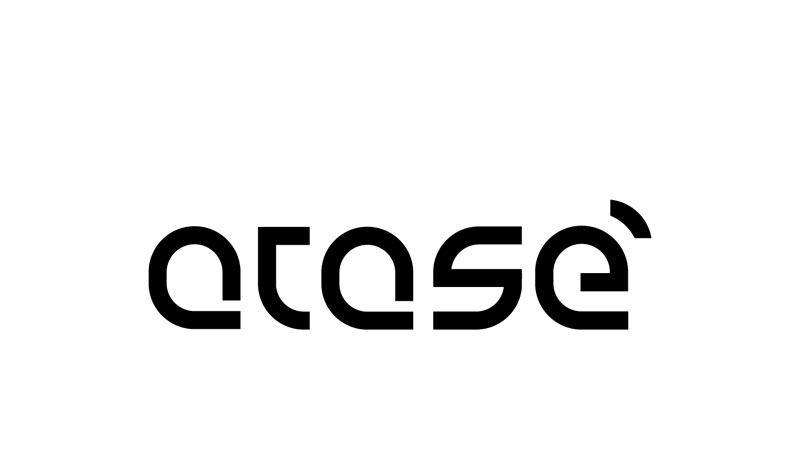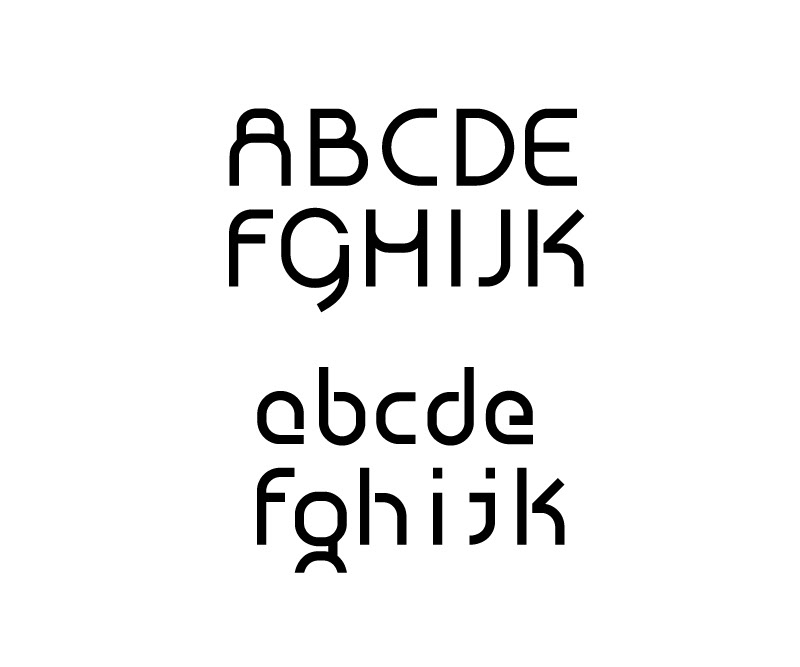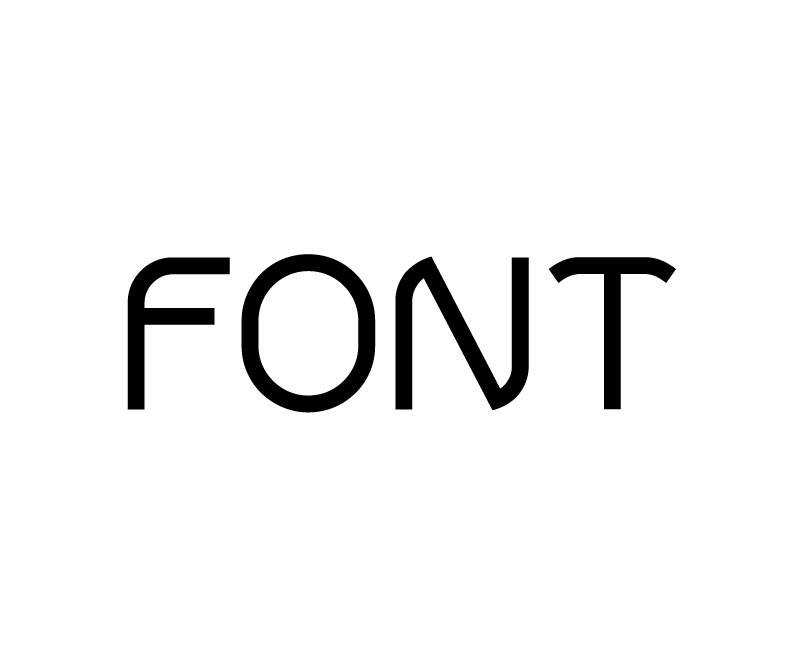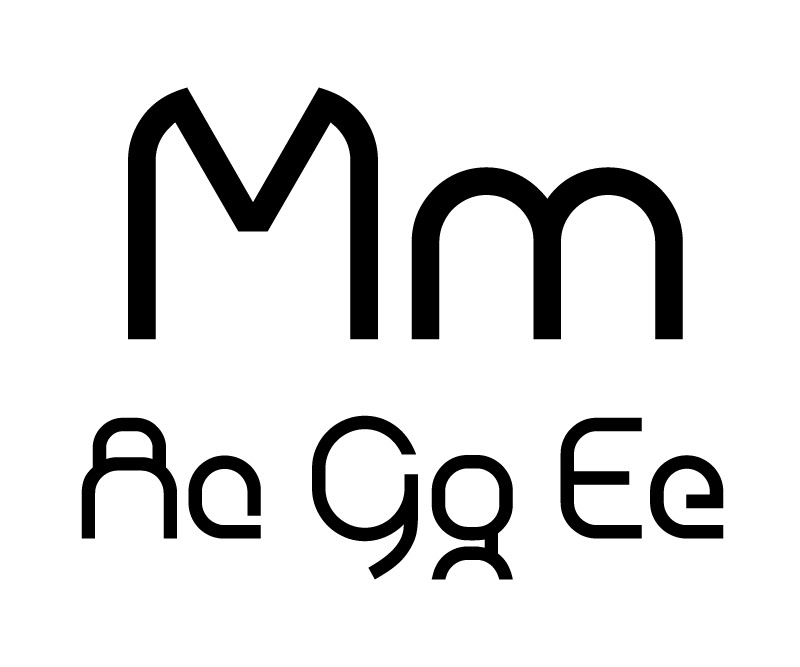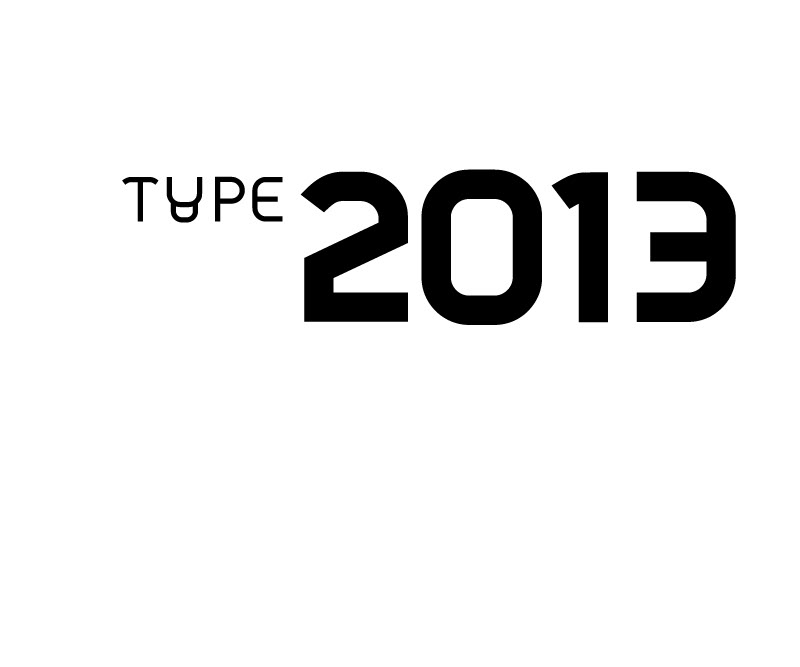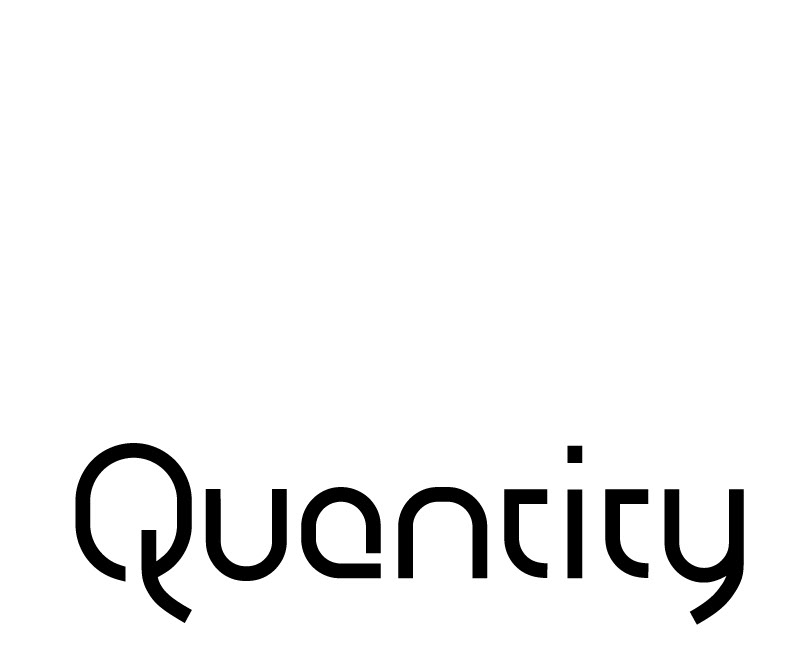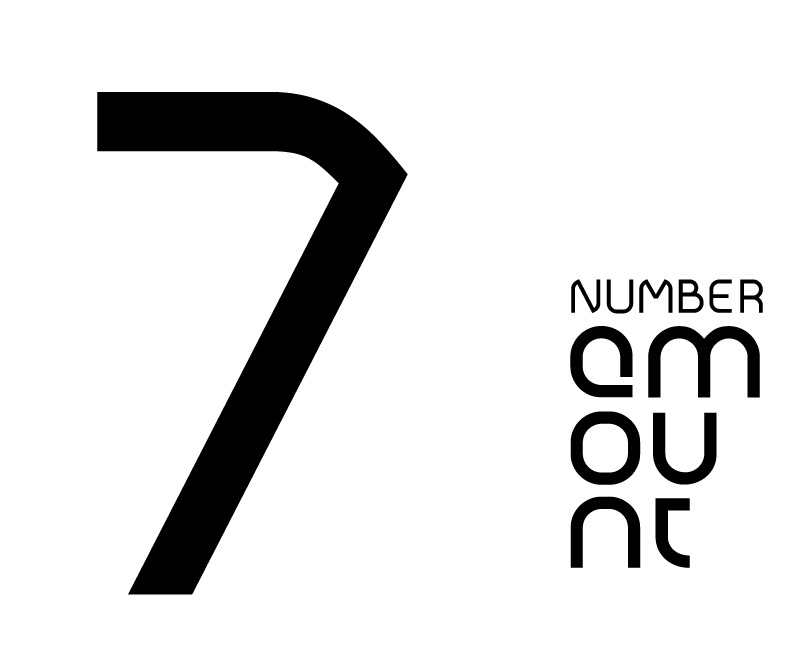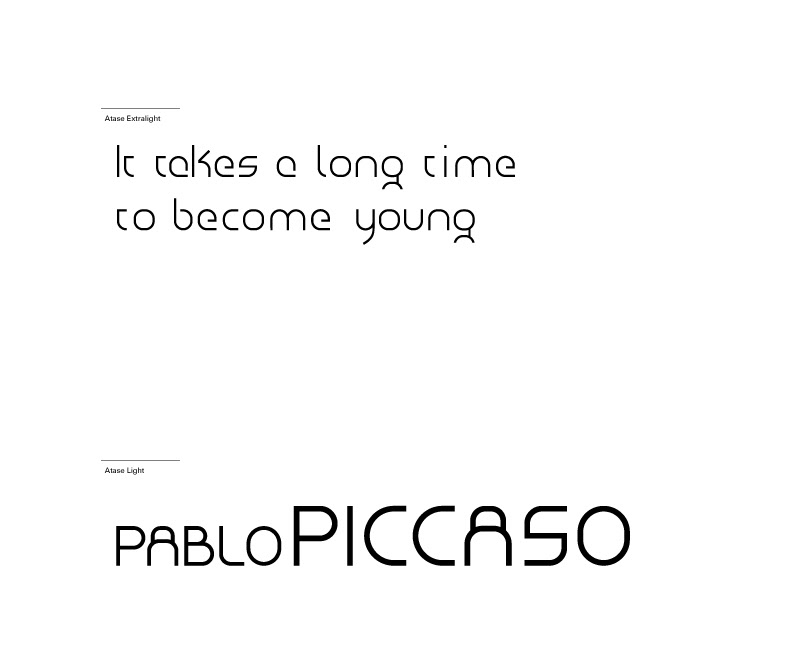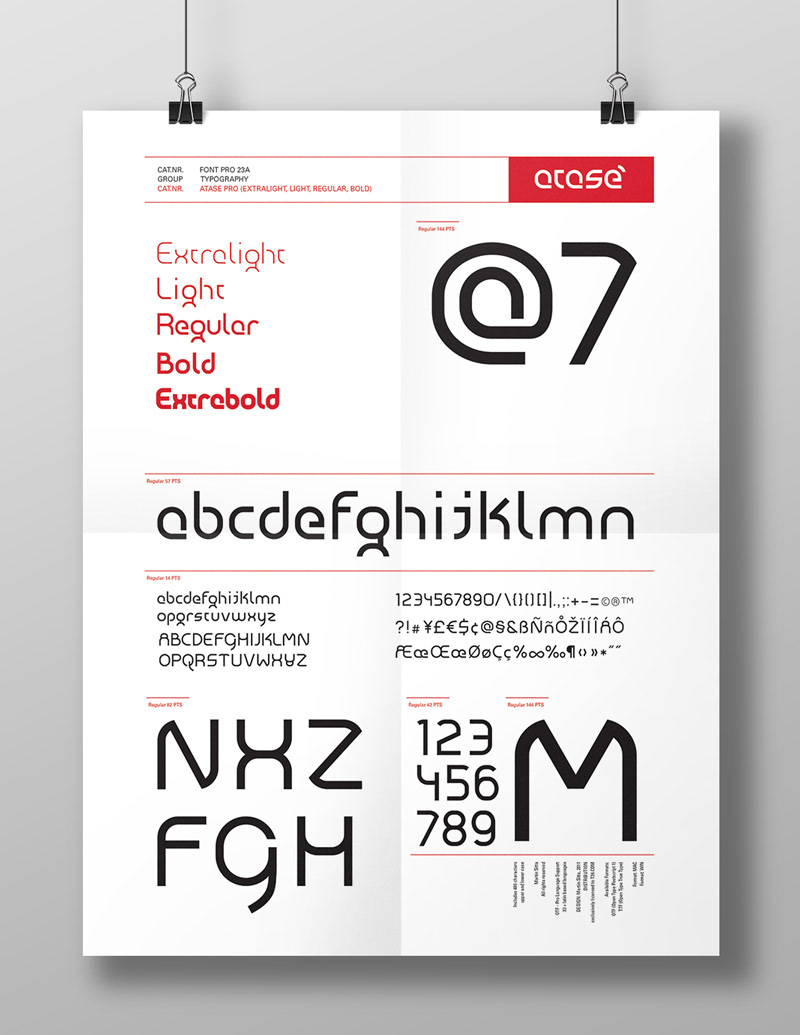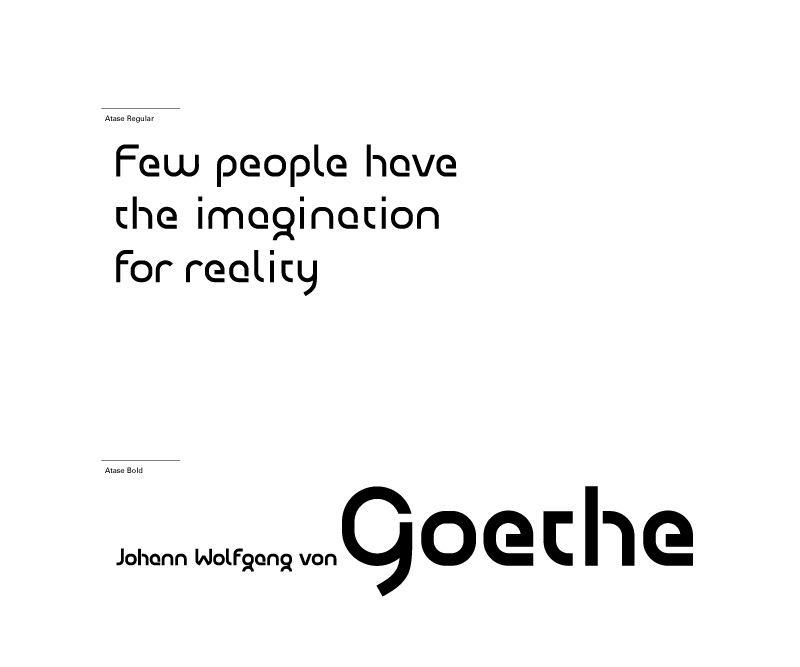
Atase typeface
Atase is a minimalist sans serif typeface family with a modern feel. The rounded structure of the font provides high legibility in both text and display settings. The Atase font posseses unique qualities that are instantly recognizable.